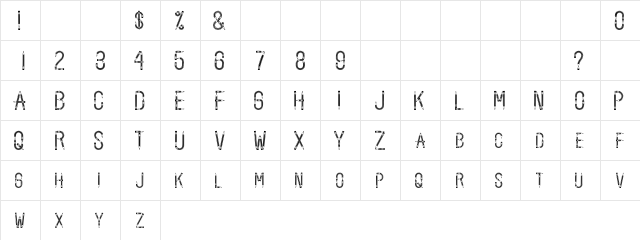
Pencilled Normal
Design Context for Pencilled Typeface
Pencilled is a composed and adaptable typeface that performs quietly and consistently across a wide range of design contexts.